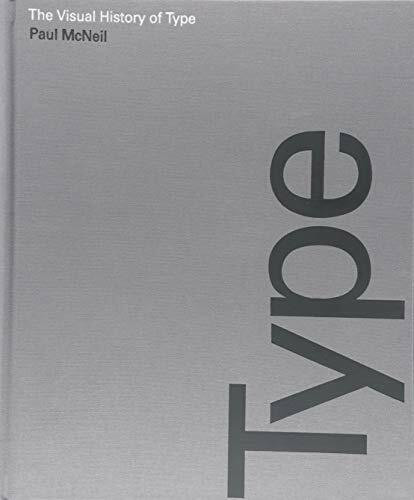
The Visual History of Type (A visual survey of 320 typefaces)
Paul McNeil
The Visual History of Type is a comprehensive, detailed survey of the major typefaces produced since the advent of printing with movable type in the mid–fifteenth century to the present day. Arranged chronologically to provide context, more than 320 typefaces are displayed in the form of their original type specimens or earliest printing. Each entry is supported by a brief history and description of key characteristics of the typeface.
This book will be the definitive publication in its field, appealing to graphic designers, educators, historians and design students. It will also be a significant resource for professional type designers and students of type.
"A mind–blowing catalogue of typefaces and type history… a fantastic, heavyweight compendium of letterforms that's a firm WIRED art department favourite." – WIRED magazine
"The Visual History of Type is a comprehensive, detailed survey of the major typefaces produced since the advent of printing…This book will be the definitive publication in its field, appealing to graphic designers, educators, historians and design students." – Against The Grain
"Accessible, highly readable and, moreover, a type book to pore over and simply enjoy as the history of the medium evolves chronologically from page to page." – Creative Review
"This exquisitely produced, extensively researched and extraordinarily comprehensive work is a definitive study of the history of type." – New Design
"The Visual History of Type is a beautiful book. Its arranged into hundreds of short chapters invites one to peruse it haphazardly for pleasure. Beneath its coffee–table appearance lies a genuine reference work." – The Times Literary Supplement